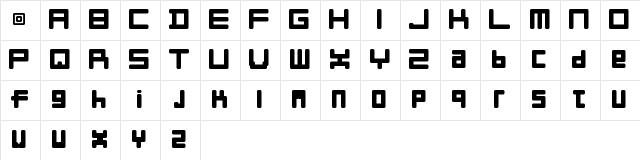
Full Liner Regular
Designer: George J Fox
Design Context for Full Liner
Full Liner is a composed and adaptable typeface that performs quietly and consistently across a wide range of design contexts.